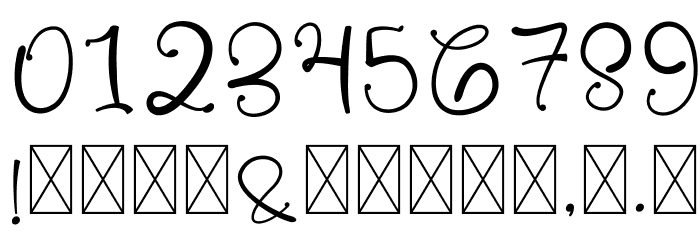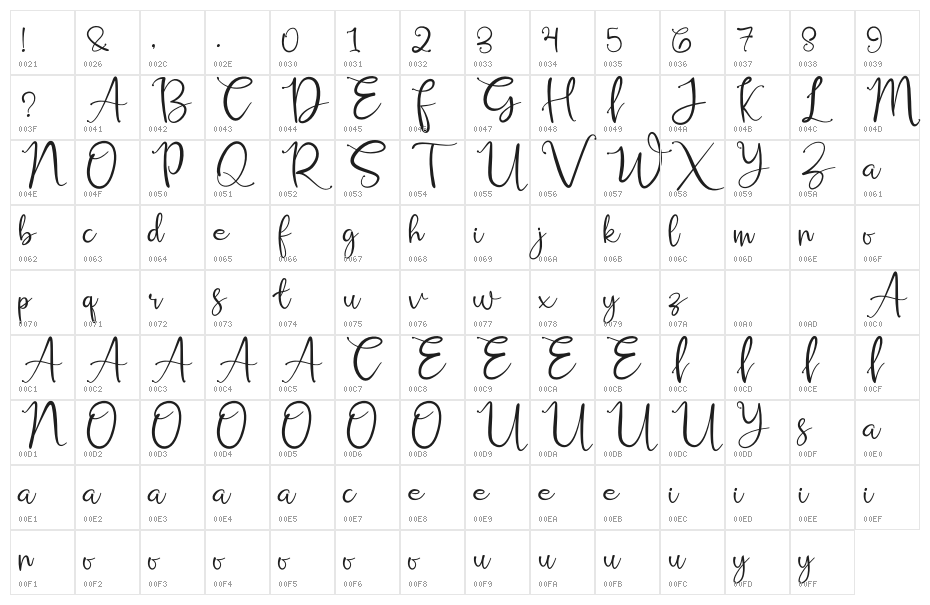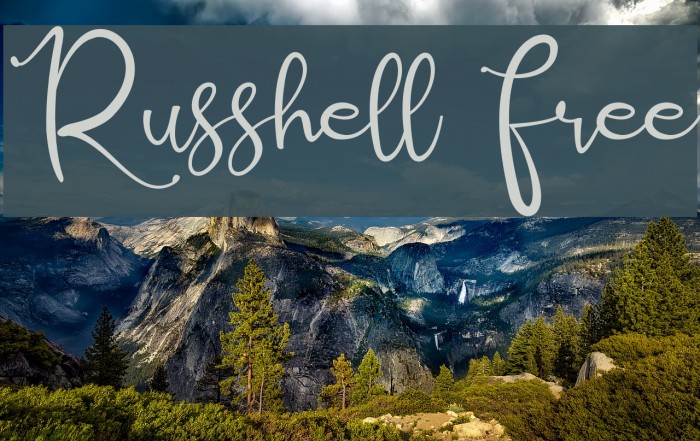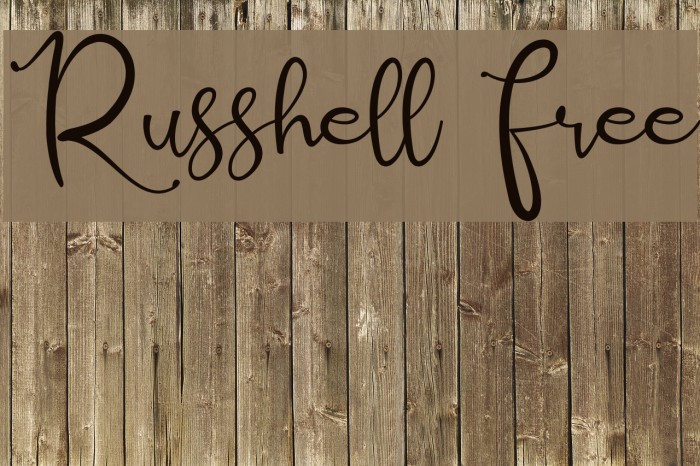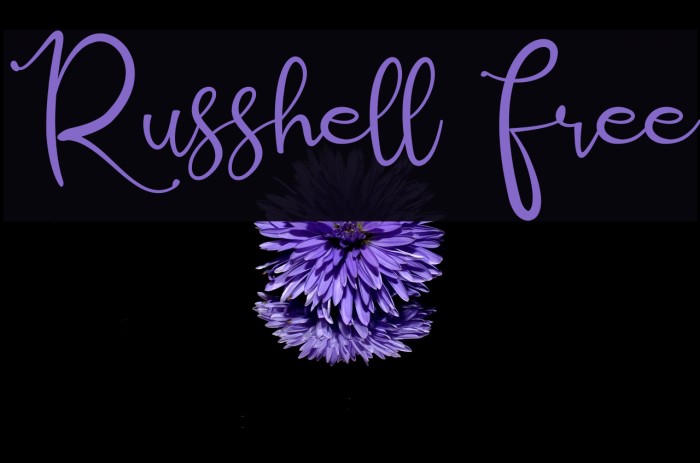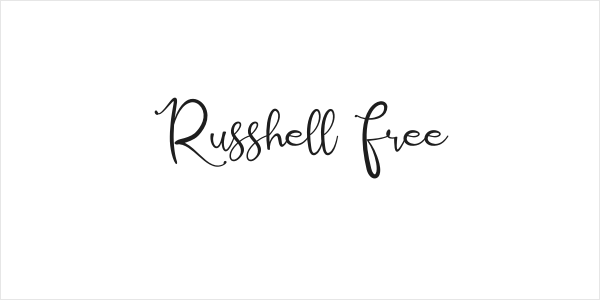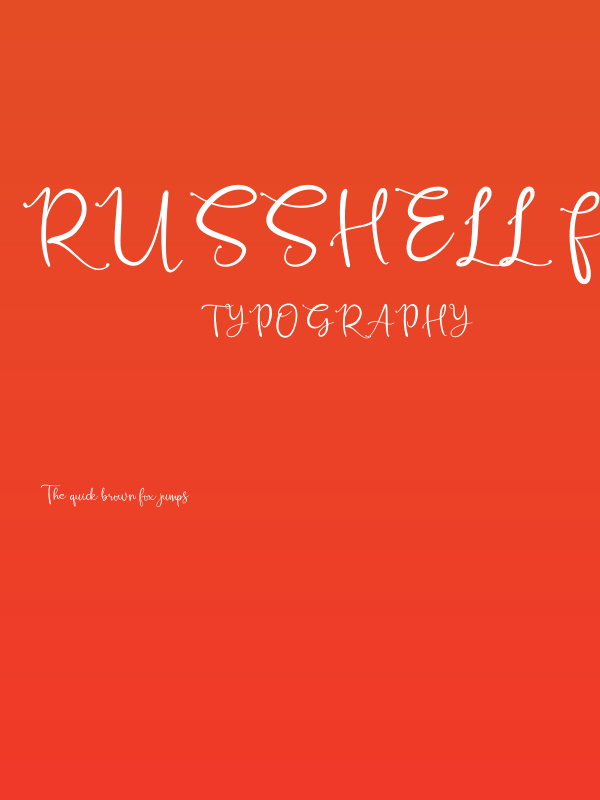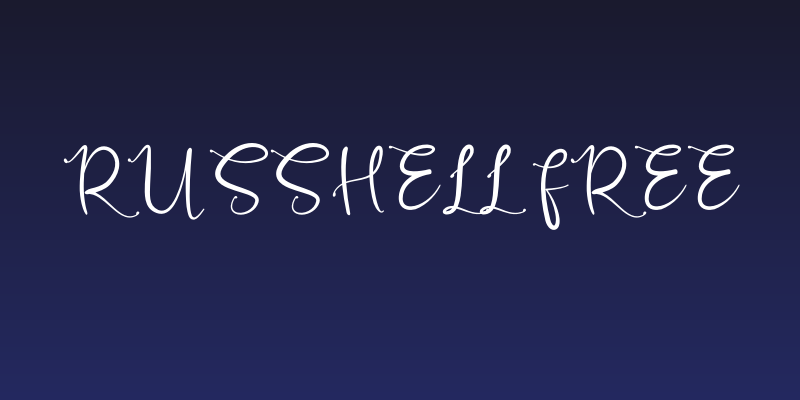
Russhell Free Font
Russhell Free Description
This font features a playful and elegant script style with a handwritten appearance. The uppercase letters are tall and slender, with a slight slant that adds a dynamic flow to the text. The lowercase letters are more rounded and connected, giving a cohesive and fluid look. The numbers are consistent with the overall style, maintaining a balance between readability and artistic flair. The special characters are designed to complement the letters, ensuring a harmonious visual experience. This font is ideal for projects that require a personal and creative touch, such as invitations, greeting cards, and branding materials.
| Proposed Projects | Ideal for invitations, greeting cards, branding, and creative projects. |